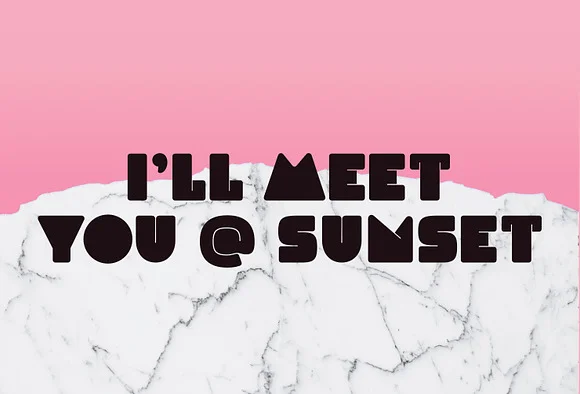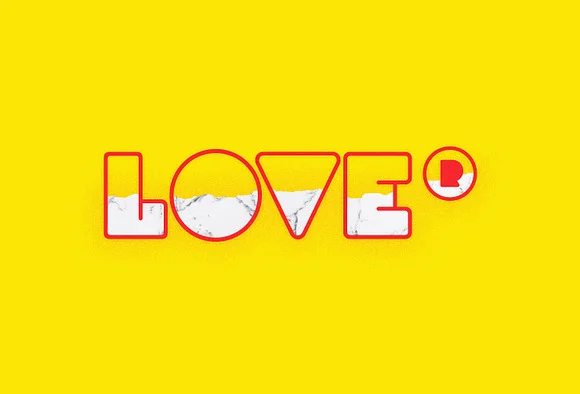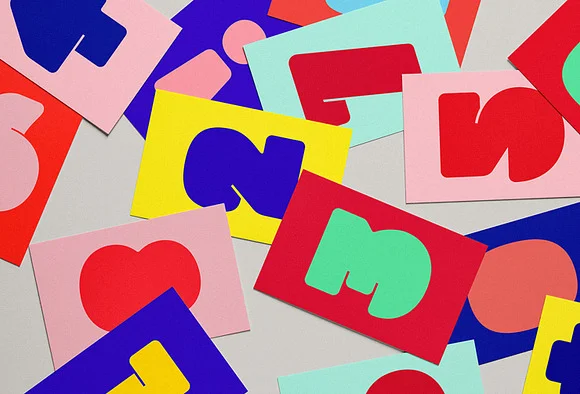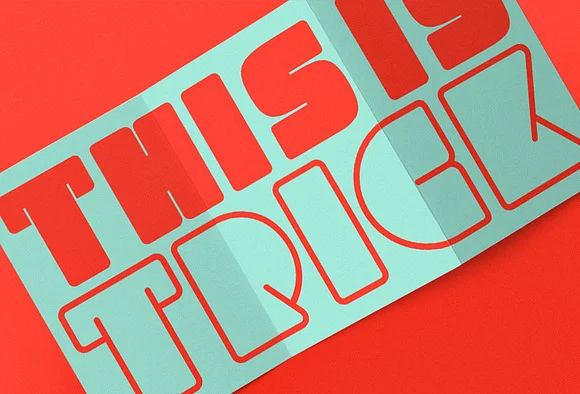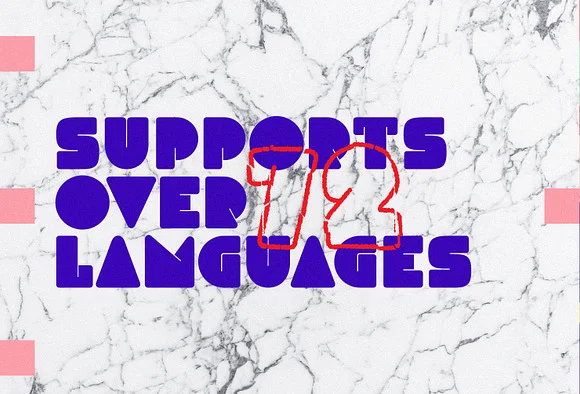
Split Type Family
Typography shapes perception at a subconscious level. Split Type Family leverages a confident voice that adapts to diverse briefs to make every composition feel considered. The typeface brings a versatile sensibility to a broad range of creative disciplines, with versatility across print and screen contexts that holds up whether the work is print-first or screen-first.
In practice, Split Type Family proves particularly effective for environmental graphics, brand identity systems, signage systems, advertising campaigns, social media graphics. Designers reaching for it find that the type decisions feel resolved rather than laboured — a useful quality when client timelines are tight.
The range of applications extends to annual reports, poster creation, product labels, editorial layouts. That breadth is deliberate: the proportions and spacing were stress-tested across a wide range of mock briefs before the typeface was finalised.
Split Type Family sits comfortably alongside both classic and contemporary typefaces in multi-font hierarchies. It takes direction rather than competing for attention — a quality that experienced designers know is harder to find than it appears.
Art directors commissioning type-led campaigns find Split Type Family a reliable choice for projects that demand both personality and restraint. The design avoids the self-conscious quirkiness that dates quickly, settling instead for considered distinctiveness that holds up over time.